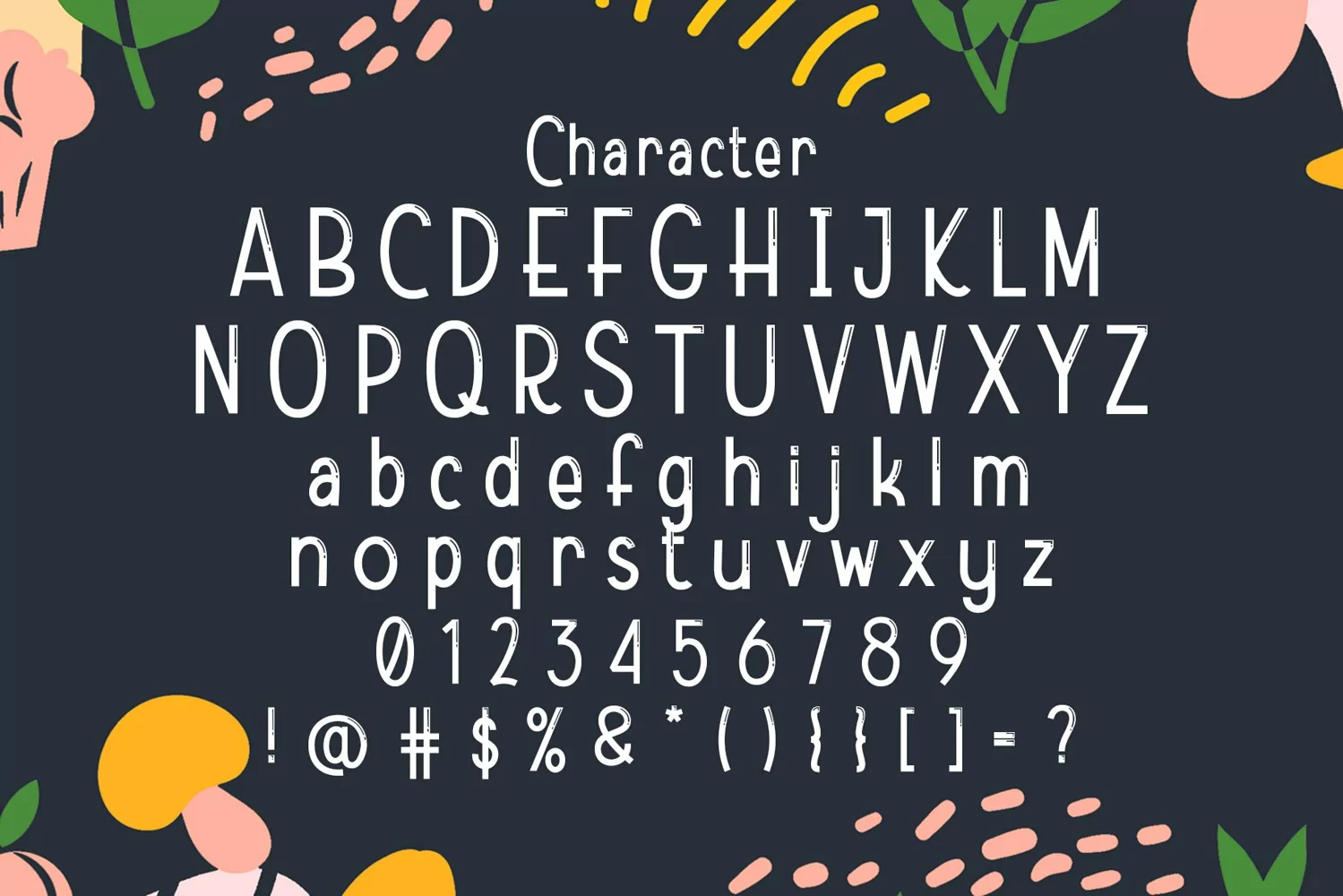
Gumsole is a display typeface. Perfect for display, poster, branding, logo, logotype, merchandise, business card, crafting, print, t-shirt, pin, header, tittle, packaging, and many more.